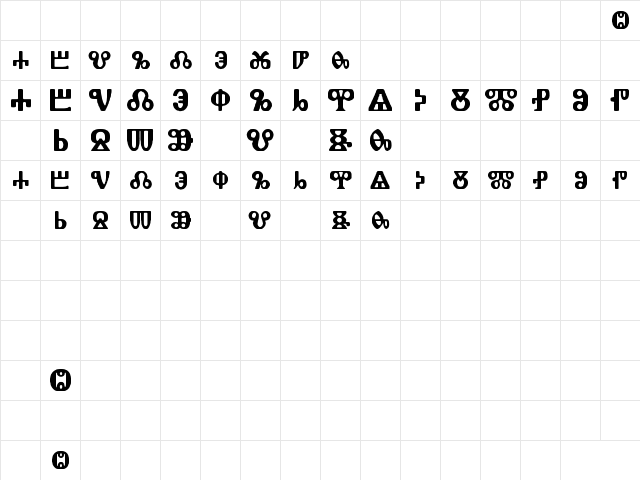
g?agolica Regular
Design Context for g?agolica Typeface
g?agolica is a composed and adaptable typeface that performs quietly and consistently across a wide range of design contexts.